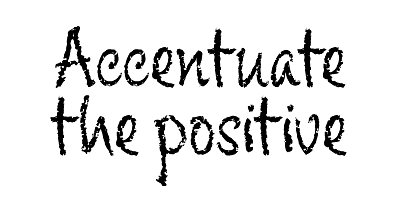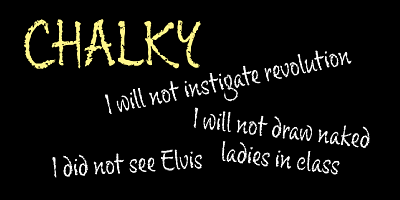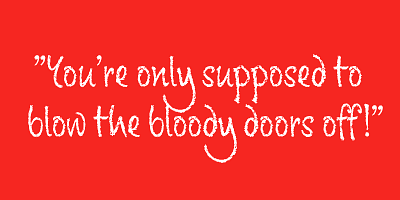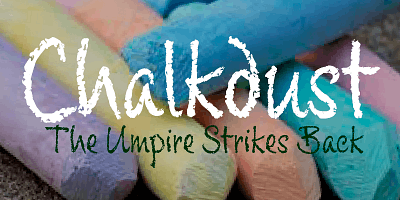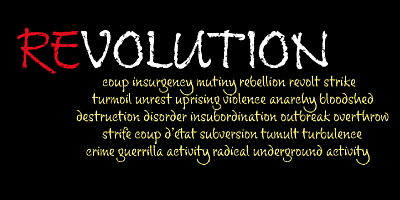
Originally designed as a supermarket point-of-sale font, Chalky is a chalk on blackboard style of lettering. More condensed than most fonts of this style, Chalky can be used in relatively long settings without losing legibility.
Alan Meeks